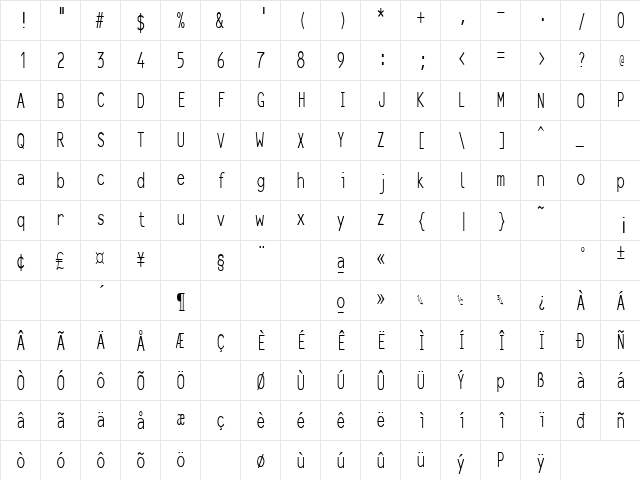
Line Printer 132 Regular
Design Context for Line Printer 132 Typeface
Line Printer 132 offers clean, dependable letterforms without strong stylistic allegiance, making it a practical choice for designers who need flexibility.